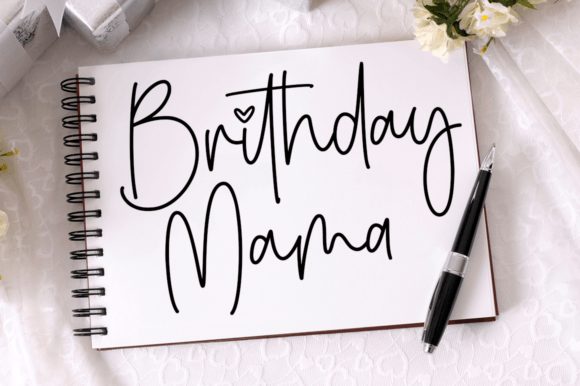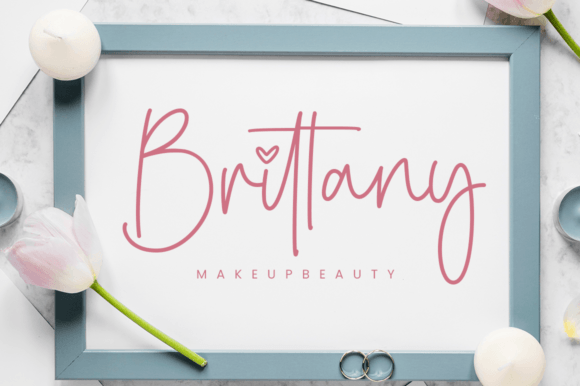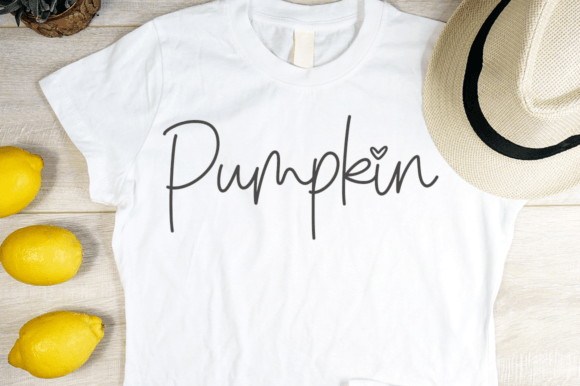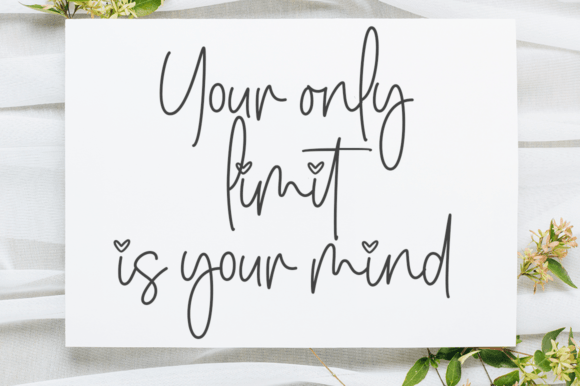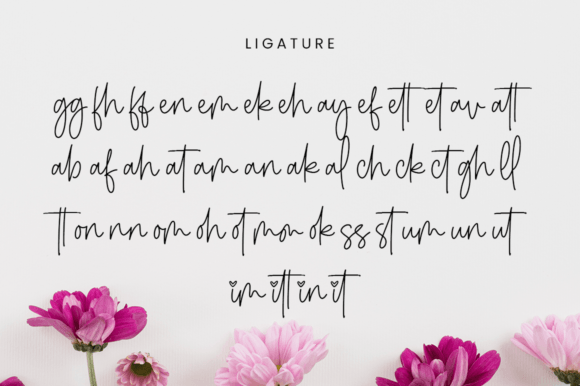
About Romantic Austine Font
“Romantic Austine” exudes charm and elegance, making it a stunning choice for various design projects. Its captivating appeal shines on wedding invitations, thank-you cards, quotes, greeting cards, logos, business cards, and any design that calls for a touch of handwritten sophistication.
The font’s charm lies in its ability to convey a sense of romance and elegance, adding a touch of grace to your text. Whether you’re working on projects for special occasions, branding, or personal expressions, “Romantic Austine” brings a handwritten beauty that resonates with timeless style.
The PUA encoding of this font is a notable feature, allowing designers to easily access an array of glyphs and swashes. This feature enhances the font’s versatility, enabling customization and personalization to suit the unique requirements of your design projects.
Incorporating “Romantic Austine” into your designs is a seamless way to infuse charm and elegance. Its adaptability to various contexts ensures that it complements different styles and themes, making it a valuable asset for designers seeking a font that effortlessly blends romance and sophistication.
In conclusion, “Romantic Austine” is more than just a font; it’s a design tool that adds charm and elegance to your creative projects. Whether you’re creating wedding invitations or business cards, this font’s handwritten touch elevates the visual appeal of your designs. With PUA encoding, designers have the freedom to explore the full range of glyphs and swashes, enhancing the customization and personalization possibilities. Embrace the romantic and elegant aura of “Romantic Austine,” and let it bring a touch of timeless beauty to your creations.